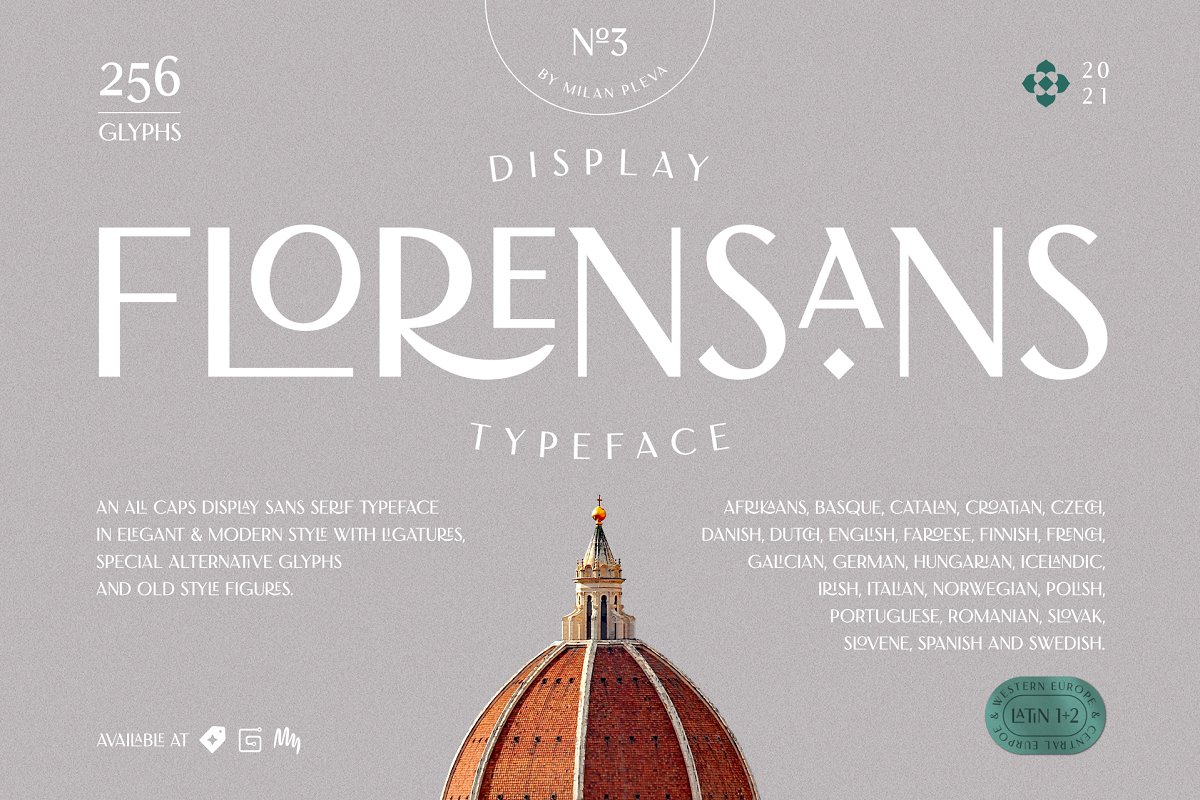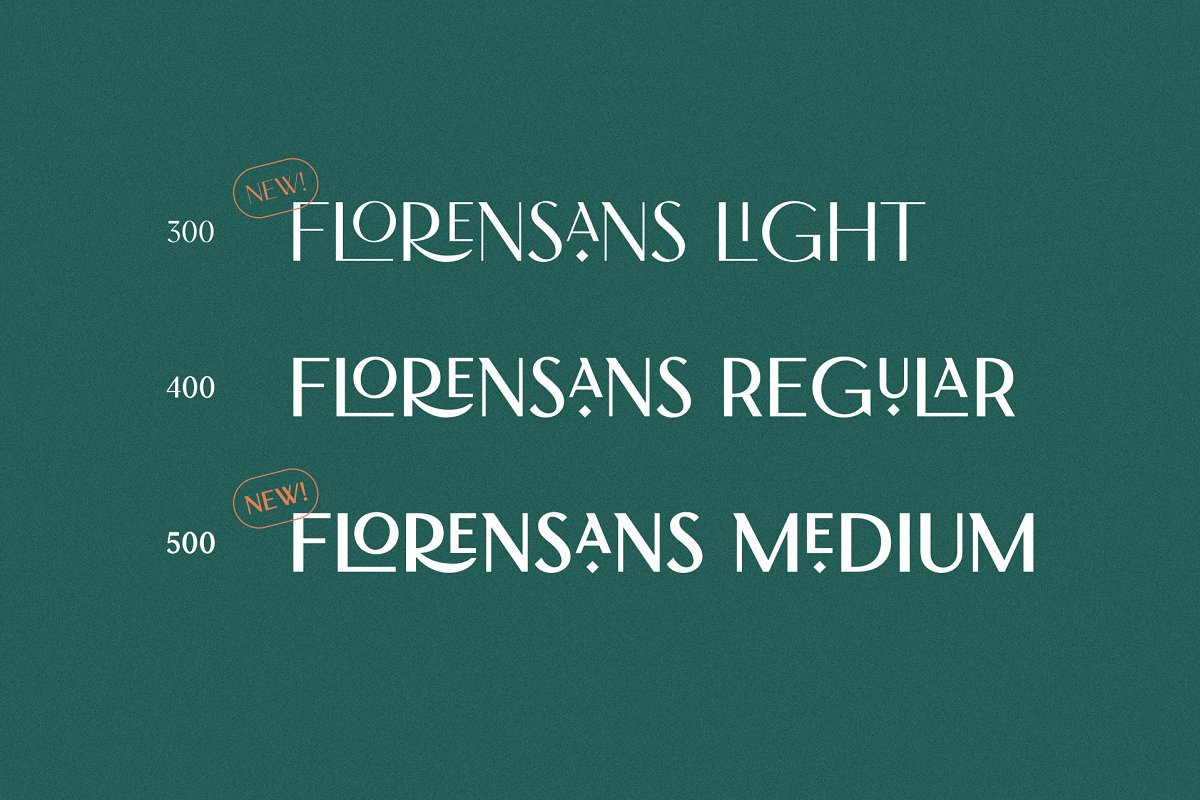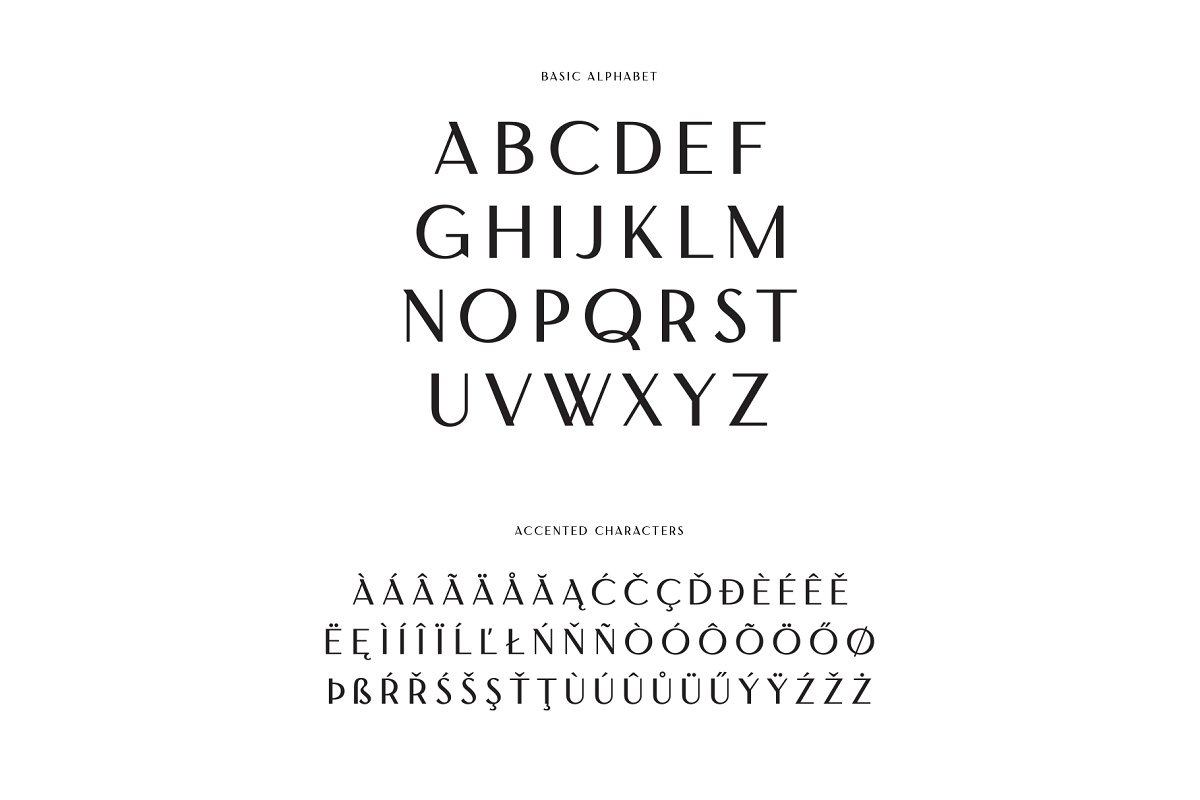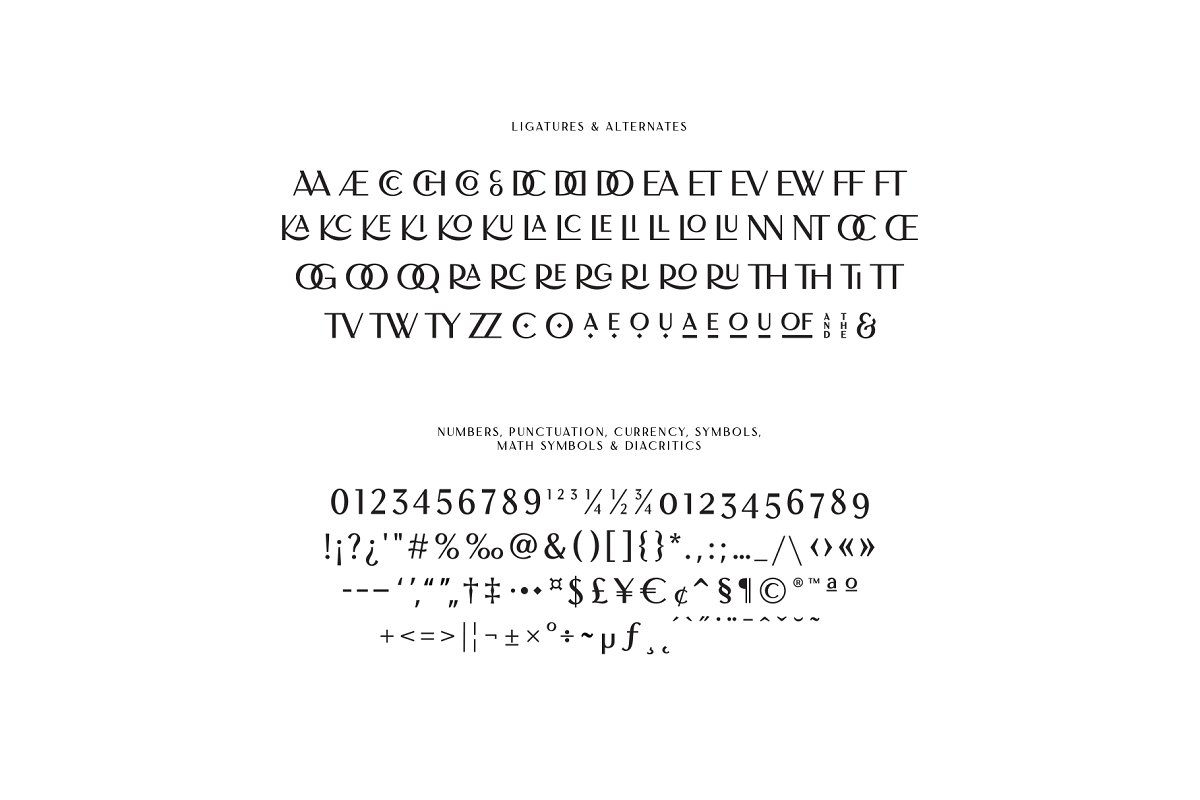
About the Florensans Display Typeface Font
Florensans is an all caps display sans serif typeface in elegant & modern style with ligatures,special alternative glyphs and old style figures, Florensans is ideal for headlines, headers, logos, labels, packaging, postcards, presentations, magazines, invitations, etc, FEATURESBasic latin alphabet A-Z64 Ligatures & Alternates56 Accented charactersNumbers, Punctuation, Currency, Symbols, Math symbols & DiacriticsOld style figuresLANGUAGE SUPPORTLatin 1 + Latin 2Western Europe and Americas:Afrikaans, Basque, Catalan, Danish, Dutch, English, Faroese, Finnish, French,Galician, German, Icelandic, Irish, Italian, Norwegian, Portuguese, Spanish and Swedish
Latin-written Slavic and Central European languages:Czech, German, Hungarian, Polish, Romanian, Croatian, Slovak, Slovene, Full preview: https://www, behance, net/gallery/110856055/Florensans-Typeface?Enjoy Florensans!